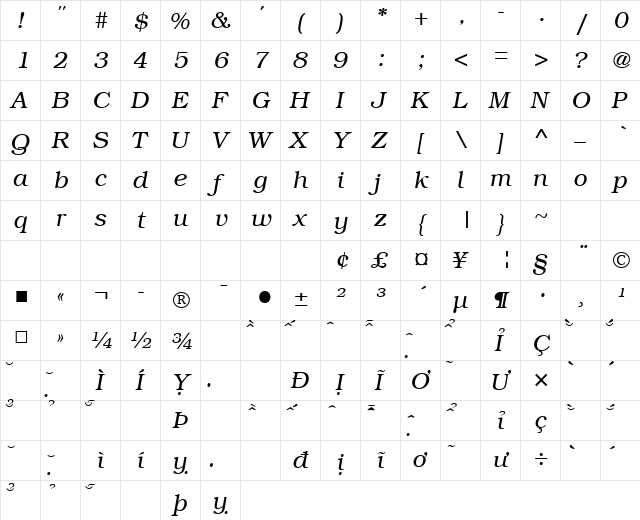
VNI-Book Italic Font Preview
VNI-Book Italic
VNI-Book Italic Font Details
Design Context for VNI-Book Typeface
VNI-Book takes a measured approach to typography — its balanced proportions and neutral character make it a reliable workhorse for both digital and print work. Its italic angle brings a sense of urgency and motion to the letterforms.